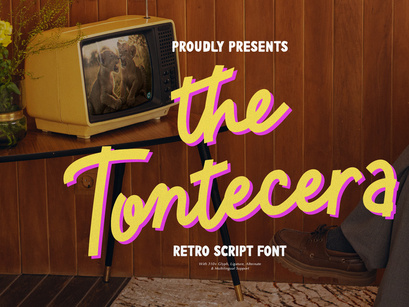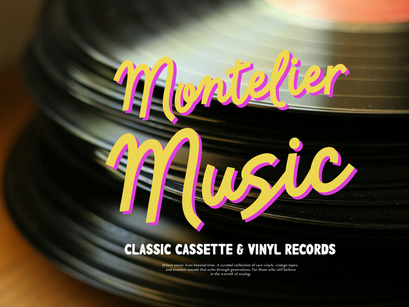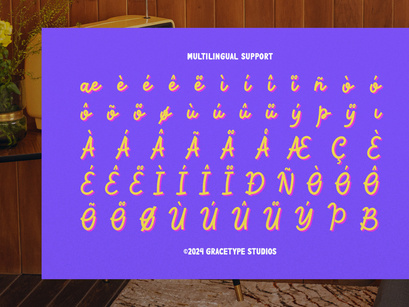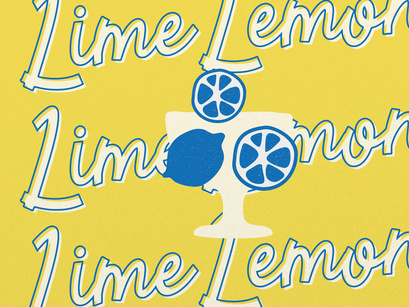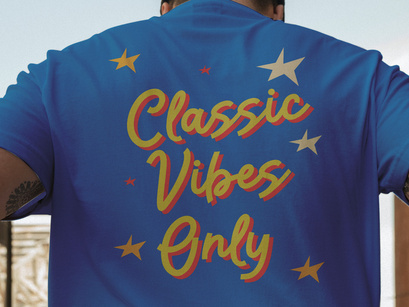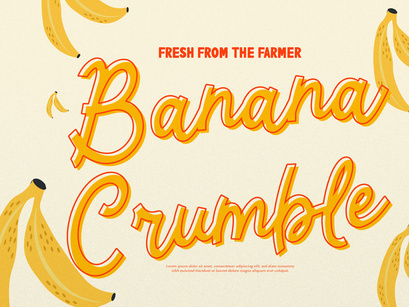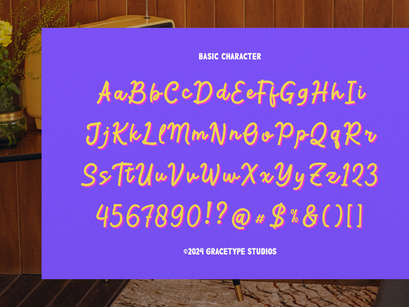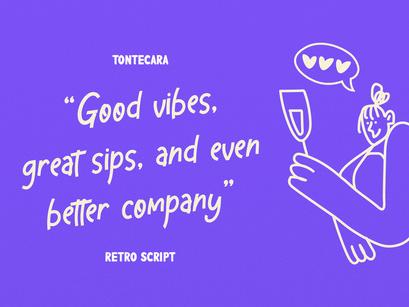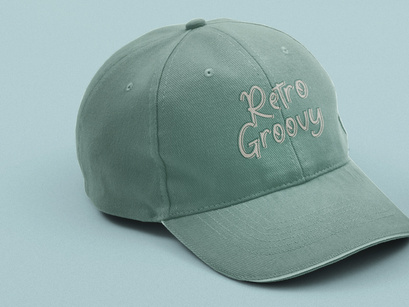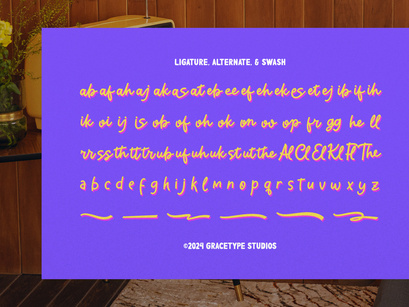
Tontecera | Retro Script Font
Tontecera Italic
Tontecera
Tontecera | Retro Script Font, from Gracetypestudio, suitable for any projects such as: logos, branding projects, homeware designs, product packaging, mugs, quotes, posters, shopping bags, t-shirts, book covers, name card, invitation cards, greeting cards, label, photography, watermark, special events, and all your other lovely projects that need a Retro Serif taste.